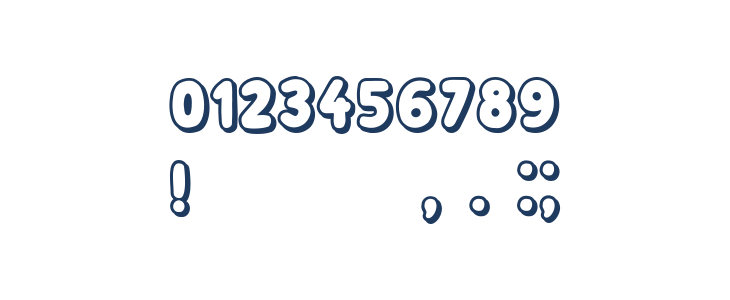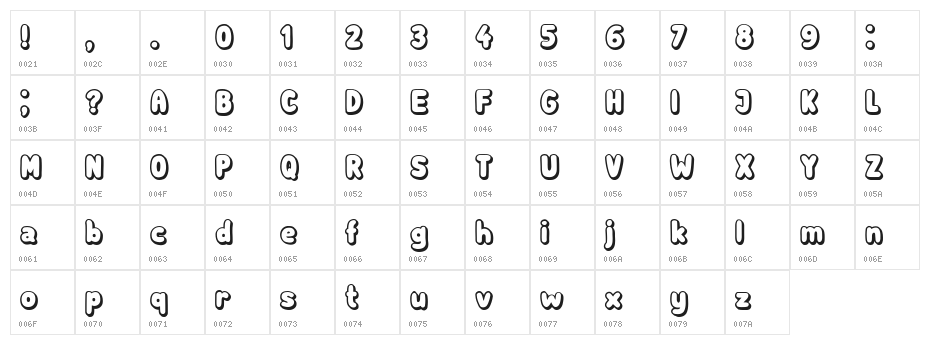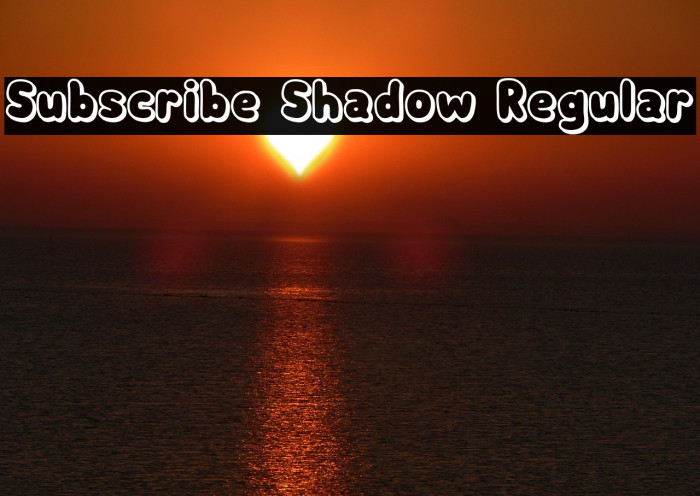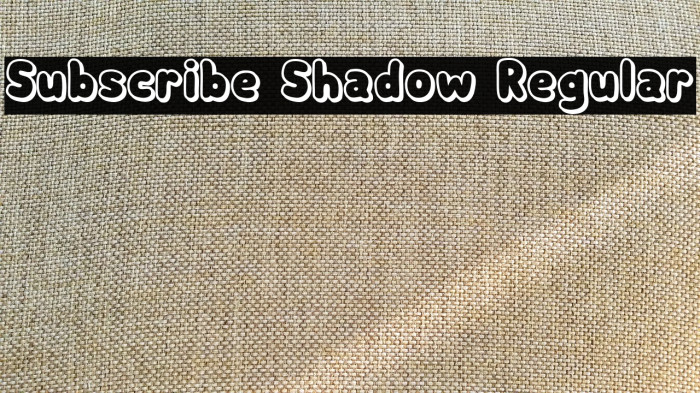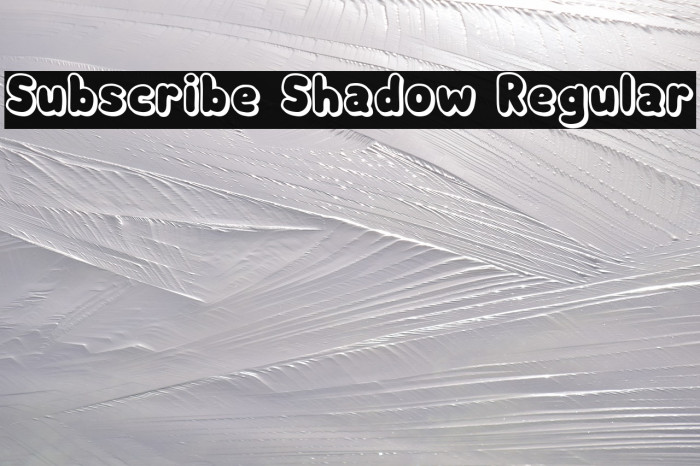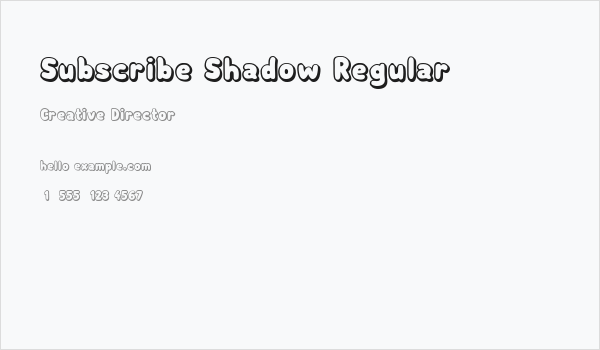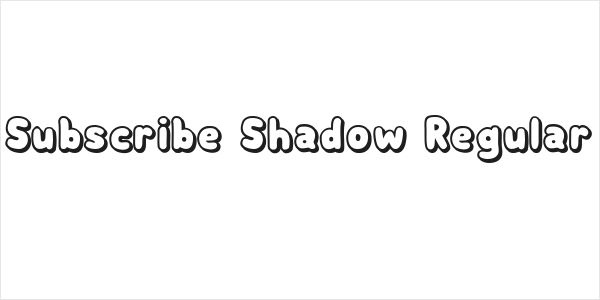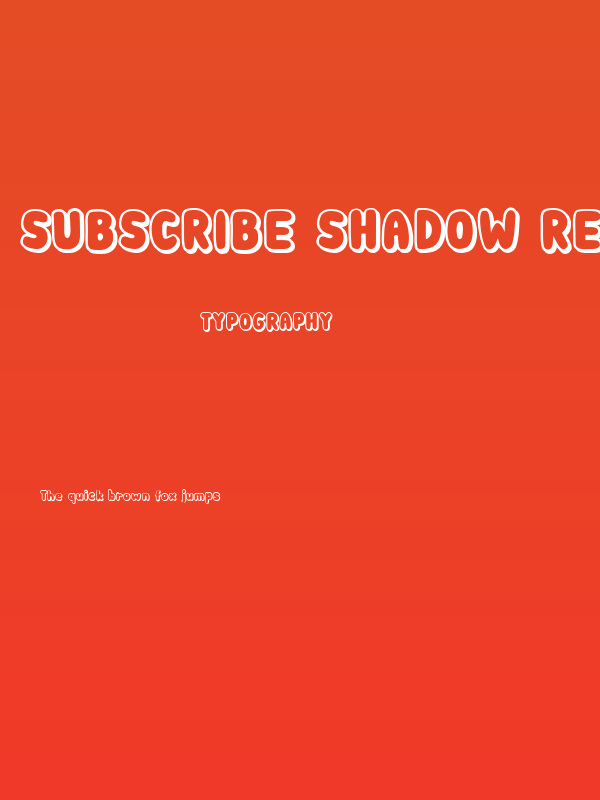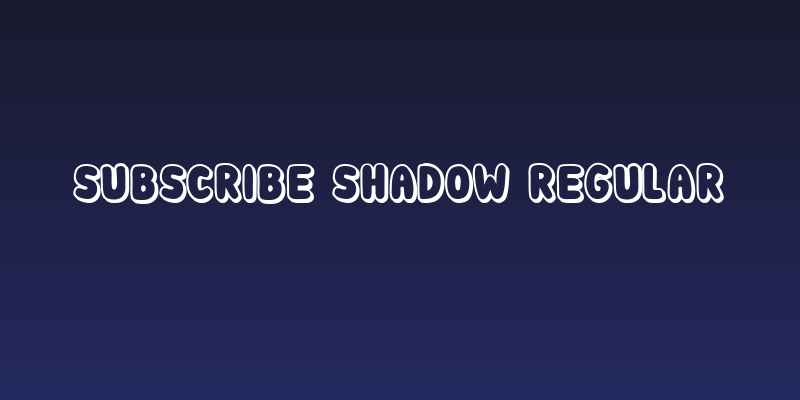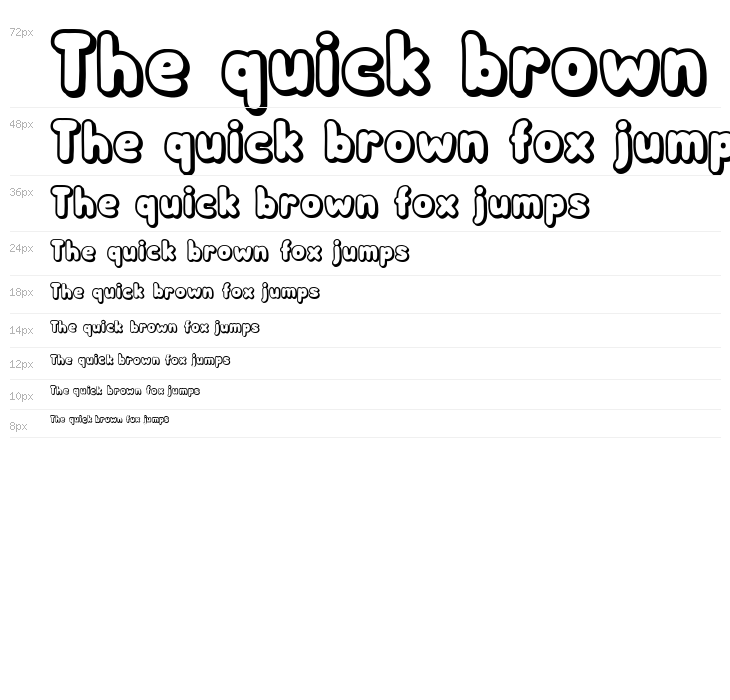
Subscribe Shadow Regular Font
Subscribe Shadow Regular Description
This playful and bold font features a shadow effect that adds depth and dimension to each character. The letters are rounded and thick, giving a friendly and approachable appearance. The shadow creates a three-dimensional look, making the text stand out. This style is eye-catching and ideal for designs that require a fun and engaging aesthetic. The font maintains consistency across uppercase, lowercase, and numerical characters, ensuring readability while adding a unique flair. Its decorative nature makes it suitable for creative projects.
| Overall Style | Playful, Fun |
| Proposed Projects | Ideal for children's books, playful branding, posters, and social media graphics. |